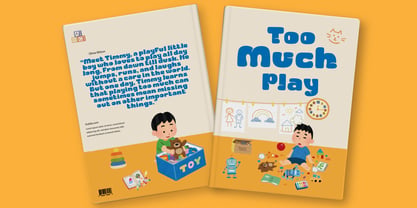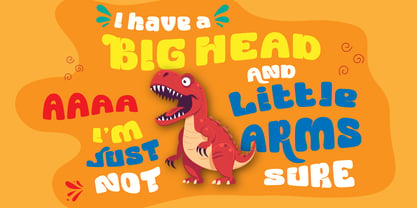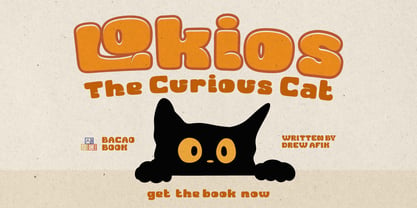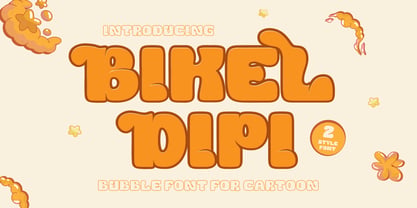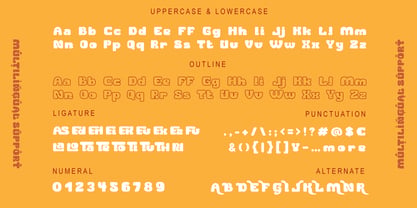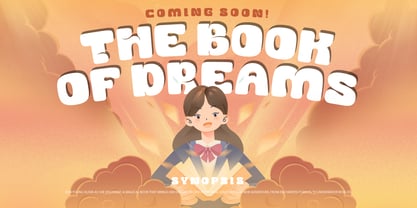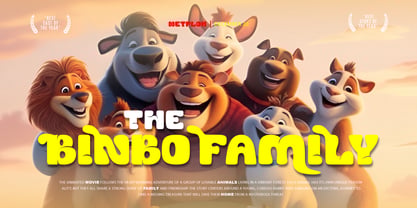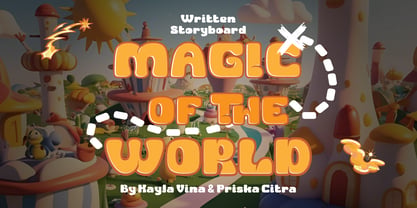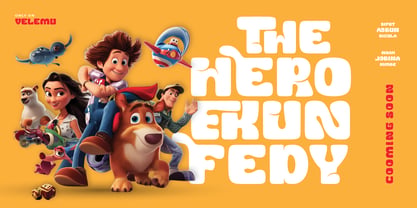
Bikel Dipi is a joyful and bouncy bubble font designed to bring smiles and playful energy to your creative projects. With its chunky, rounded letters and cartoonish charm, this font is perfect for children's content, playful branding, birthday invitations, comic books, and anything that needs a burst of cheerful personality.
Each letter in Bikel Dipi feels like it's been inflated with fun — bold, bubbly, and full of life. Its soft curves and friendly shapes make it an ideal choice for designs that aim to be approachable and full of positive vibes. Whether you’re working on a toy packaging, kids’ YouTube channel branding, or educational materials, this font delivers that cartoon magic that instantly connects with audiences.
Let Bikel Dipi add a pop of fun and friendliness to your next design. It’s not just a font — it’s a bubble of happiness ready to explode on your canvas!